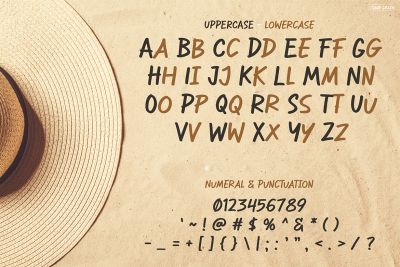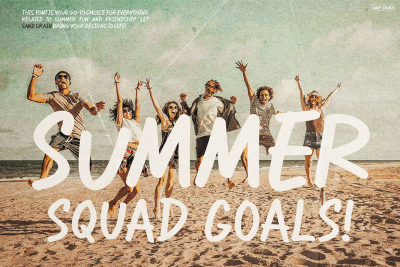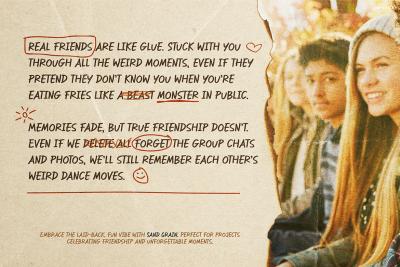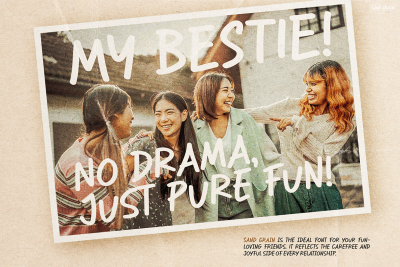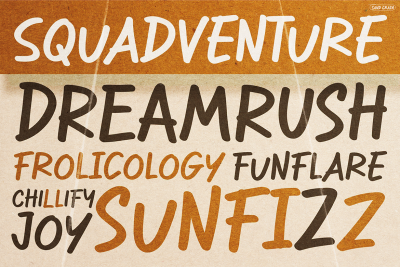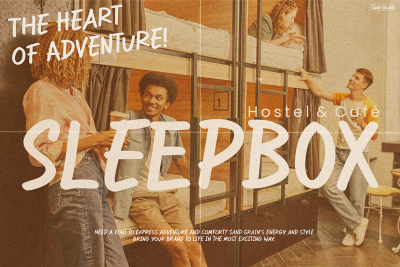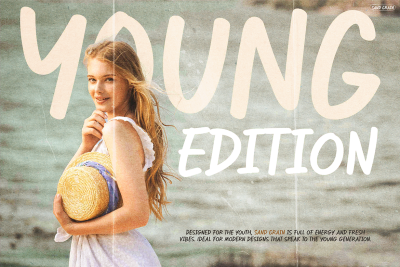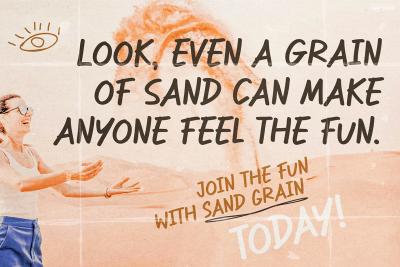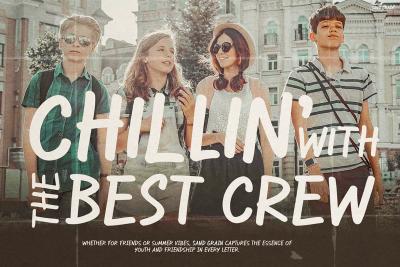
Instagram Font SAND GRAIN โ A Handcrafted, Nostalgic Font for Storytelling & Branding
If you’re looking for a font that feels warm and authentic, Instagram Font SAND GRAIN is the perfect choice. With its textured, hand-drawn style, this typeface adds a nostalgic touch to any design. Moreover, its casual yet refined look makes it suitable for both personal and commercial projects. The slightly irregular letterforms create an effortless handwritten feel, making every word look natural and engaging.
Why Choose Instagram Font SAND GRAIN?
โ Warm & Nostalgic: The handcrafted style brings an inviting, vintage touch to any project. Therefore, it works beautifully in branding and editorial design.
โ Handwritten Character: Organic imperfections add a human feel, helping to create emotional connections. As a result, your designs will feel more personal.
โ Versatile Applications: Whether youโre working on branding, packaging, or social media content, this font adapts effortlessly.
โ Casual Yet Impactful: Its playful nature makes it fun, while its structure keeps it professional. Consequently, itโs perfect for various creative fields.
โ Easy Readability: Since the letters are well-spaced, they remain clear in both digital and print formats.
Perfect for:
- Social Media & Content Creators: Elevate your Instagram posts, Pinterest graphics, and YouTube thumbnails with a handcrafted touch.
- Branding & Packaging: Ideal for lifestyle, fashion, wellness, and handmade brands that want a unique identity.
- Editorial & Print: Works well for magazines, book covers, and storytelling projects. In addition, it enhances visual appeal with its nostalgic charm.
- DIY & Personal Projects: Whether you’re designing scrapbooks, invitations, or memory books, this font adds a heartfelt touch.